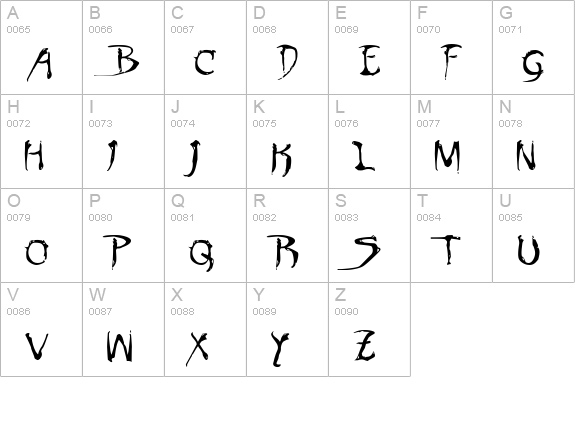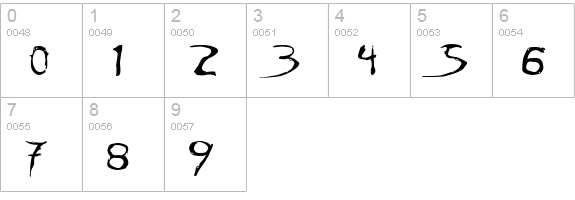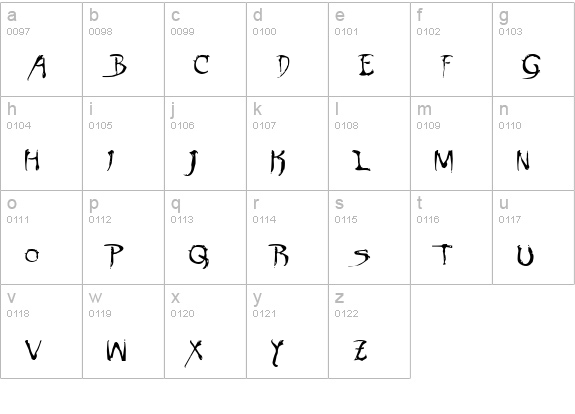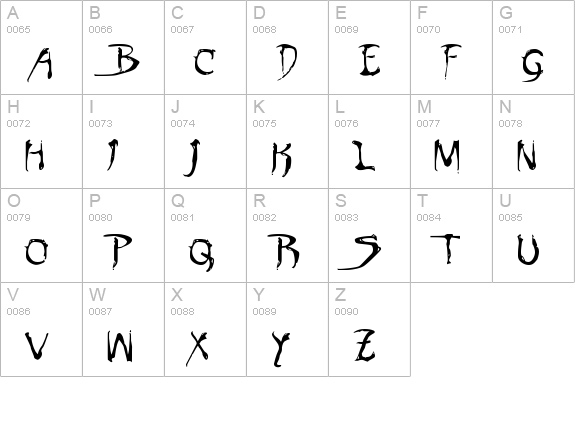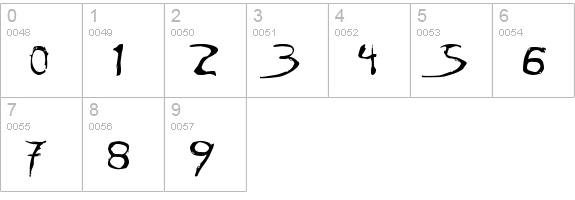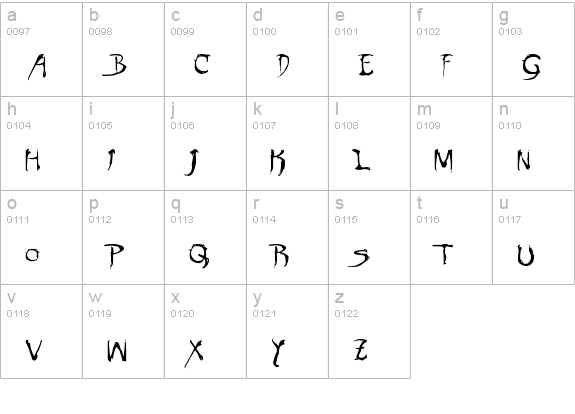
Dinobots Normal Font Details
Dinobots Normal is the standard, neutral variant in the Dinobots typeface family \xE2\x80\x94 well suited to general body text, paragraphs, and standard typographic work.
Dinobots Normal font is a bold and powerful typeface inspired by prehistoric creatures. With its strong and rugged appearance, this font is perfect for creating eye-catching designs that demand attention. The sharp angles and distinctive letterforms of Dinobots Normal make it a versatile choice for a variety of projects, from posters to branding materials. The best part? Dinobots Normal font is freely available to download at FontsMarket.com. Whether you're a designer looking to add a touch of fierceness to your work or a hobbyist wanting to spice up your personal projects, Dinobots Normal is ready to roar onto your screen. Get your hands on this dynamic font today and unleash the primal energy of the dinosaurs in your designs.